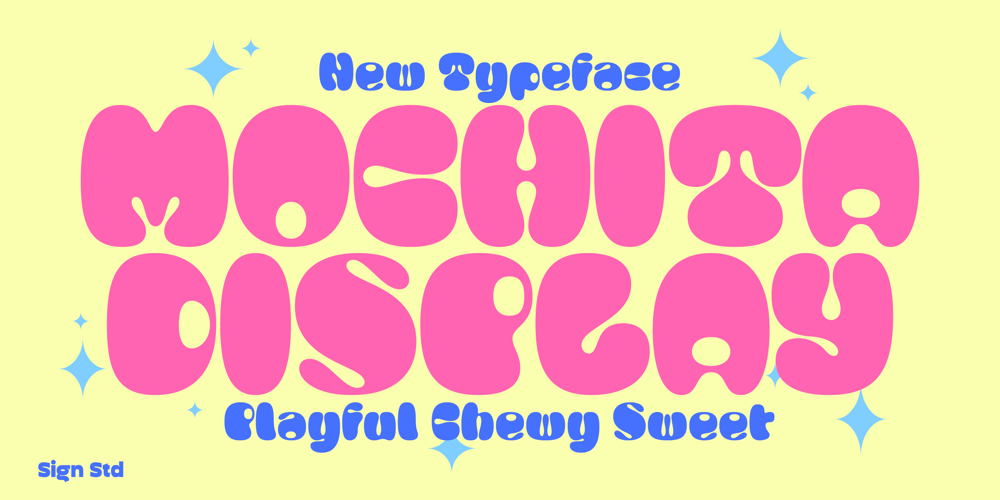
Mochita Display
Mochita Display font
Mochita Display Font Family was designed by Sugi Yanto and published by Sign Studio. Mochita Display contains 1 styles and family package options. Mochita Display is indeed a font made to give a fun, funny and cute impression. Even so, it still maintains good detail and balances the negative space. This font would be perfect for logo designs, titles, product names, labeling, or anything with a fun design theme.